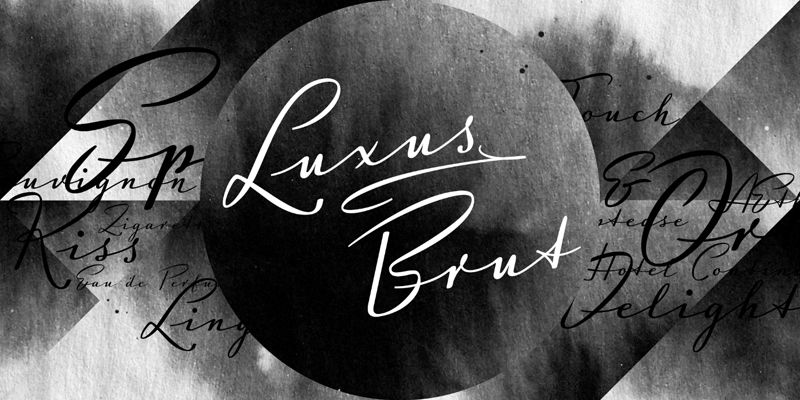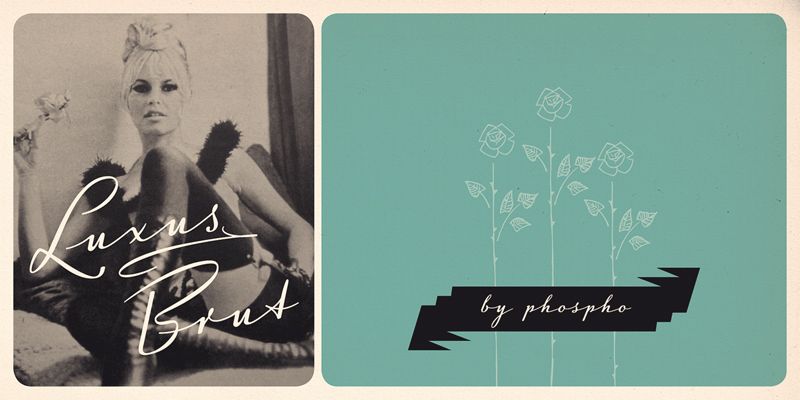
A timeless classic of a script typeface. With its generous spacing it radiates the spirit of hand-lettered signage of the 1950’s.
Phospho
Located in a central district of Vienna, Austria, Roland Hörmann runs phospho – a graphic design studio that specializes in type design.
In the early Nineties, long before he had decided to study graphic design, Roland began to dabble in type design and created a handful of experimental pixel fonts on the Commodore 64. It wasn’t until 2007, though, that he made his first serious attempts at type design, and in the following year, he published his first typeface.
Besides phospho he runs his passion project Stadtschrift: an association for the collection, preservation and documentation of historic façade signs. “We save unique signs from being scrapped and put them on display in the public again. So there is a big love for ancient shop signage and their typefaces, and the inspiration I draw from the heritage of the city makes phospho a heartfelt Viennese foundry.”